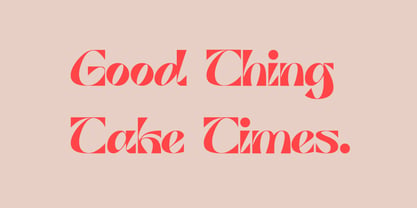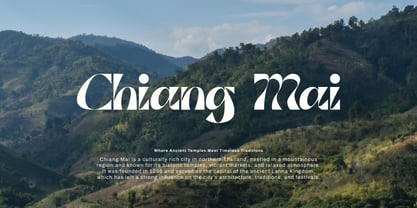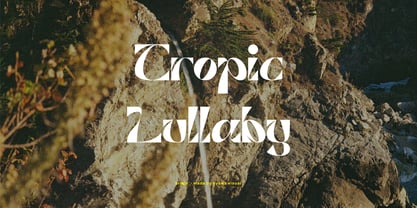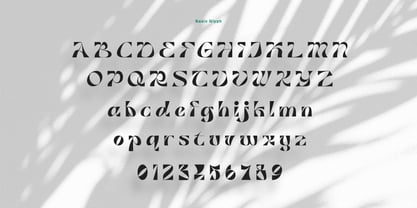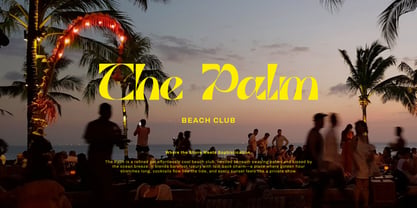
Brogo
por Nyawavisual
A família de fontes Brogo foi desenhada por Rizal Bastian Nur Budi e publicada pela Nyawavisual. Brogo contém 1 estilos. Saiba mais sobre esta família
Brogo' is a display font with a distinctive character retro, fun, and tropical in feel. It's perfect for use in branding, social media, logos, packaging, posters, and various creative projects. With its bold and playful look, Brogo' captures the warmth and vibrancy of summer, making it ideal for tropical themes, beach events, or travel-inspired designs. Whether you're designing for a surf shop, a summer festival, or a lifestyle brand, Brogo adds a lively and eye-catching touch that stands out.